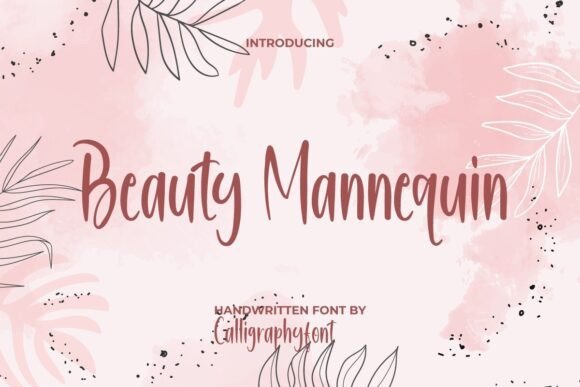
Introduction to Beauty Mannequin Font
Beauty Mannequin Font has slim character letters and is not too wide, giving it a modern appearance and will be good for use by many industries, such as advertising, beauty products, content creation, fashion, food and beverages, graphic design, handicrafts, homeware, interior design, printing, publishing, wedding organizer, etc.
Key Features of Beauty Mannequin Font